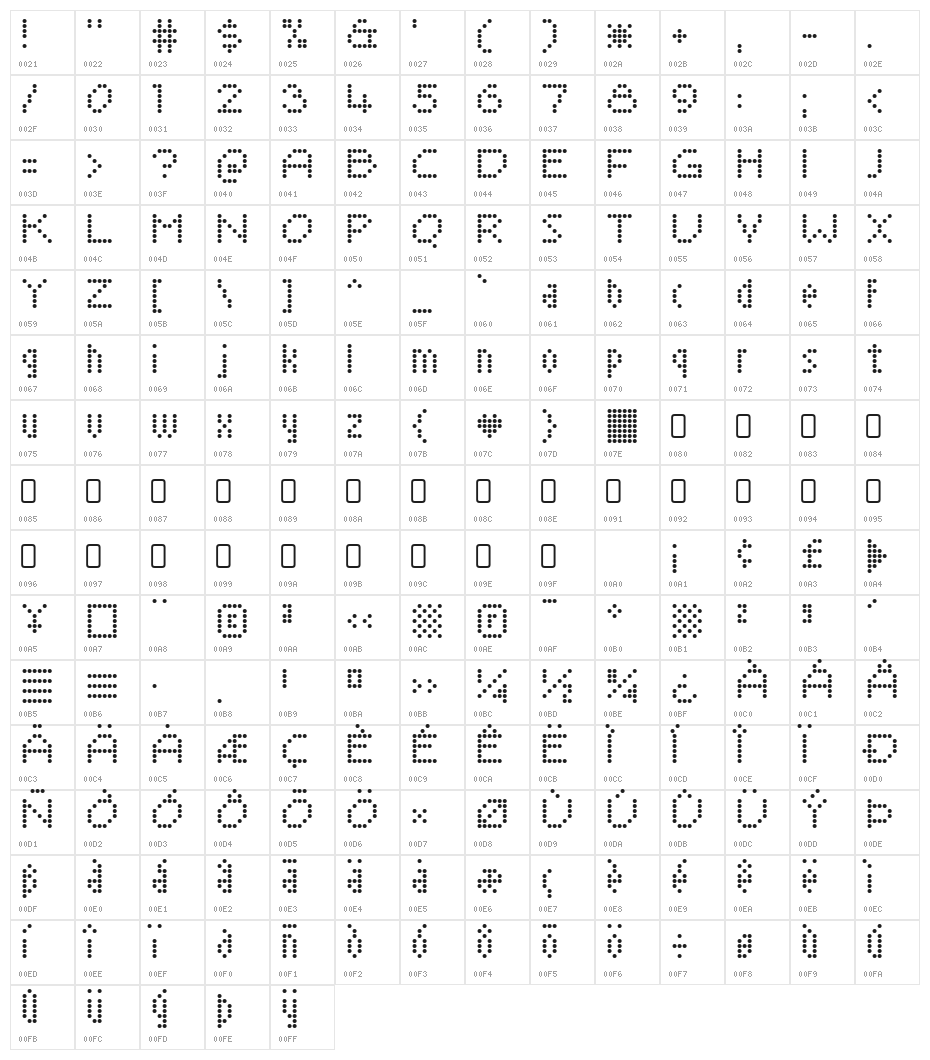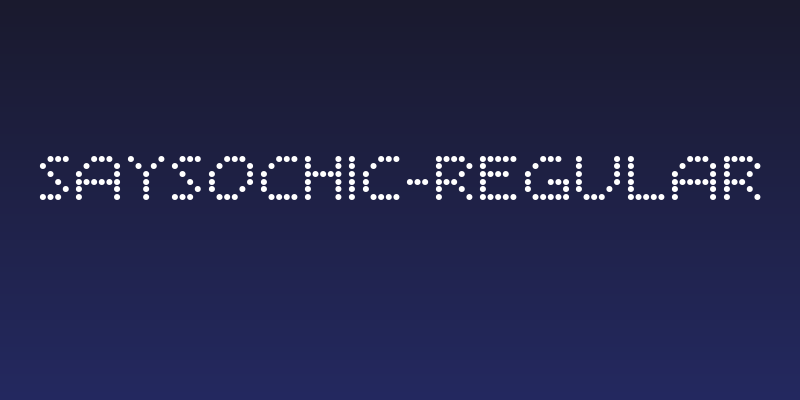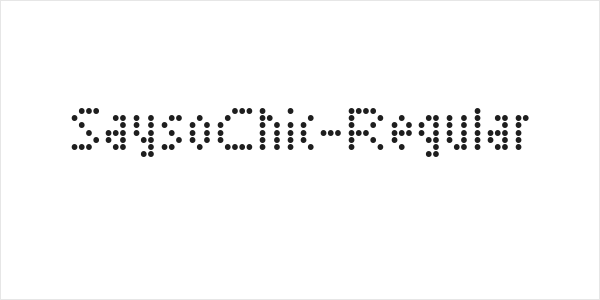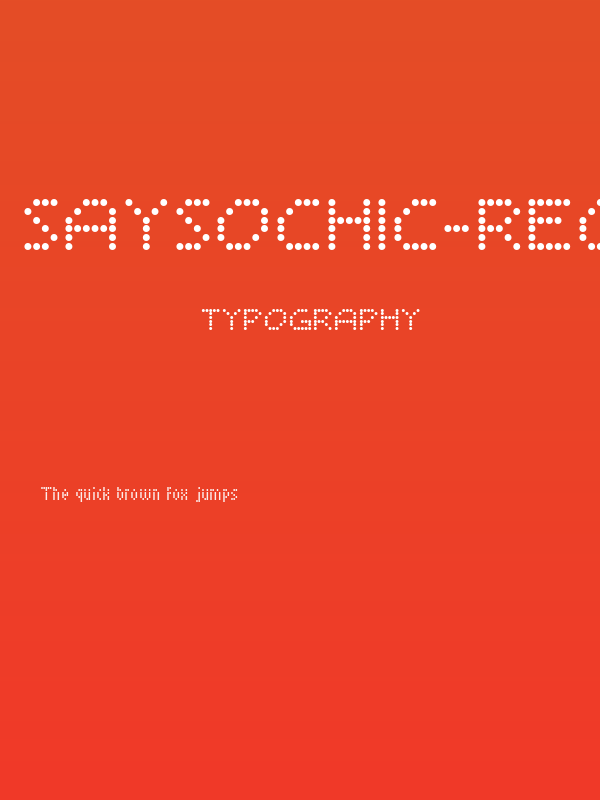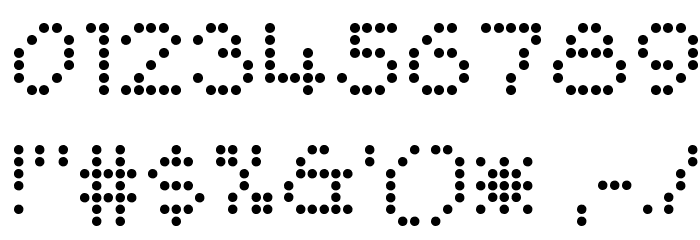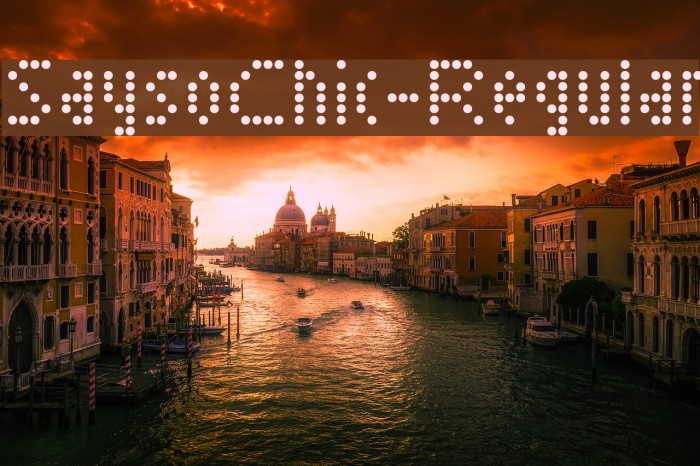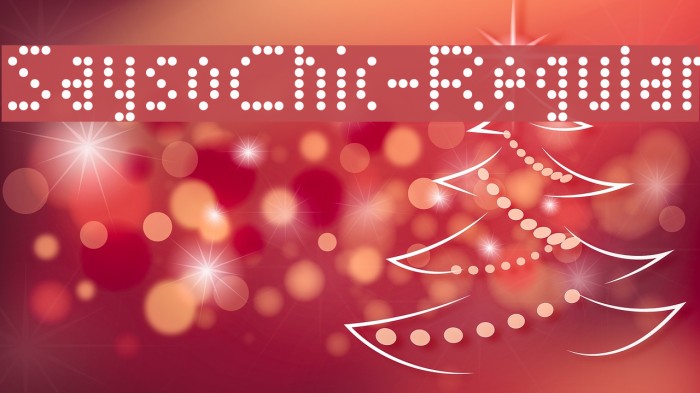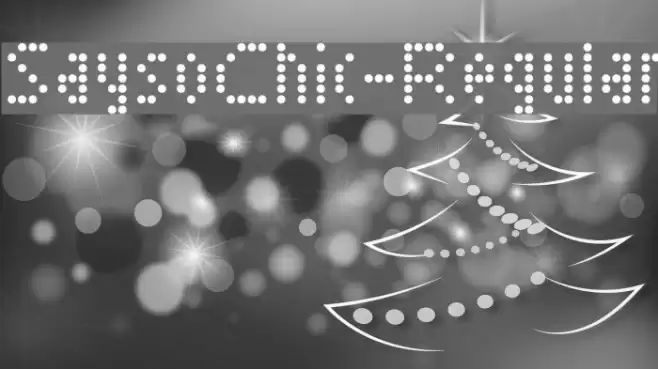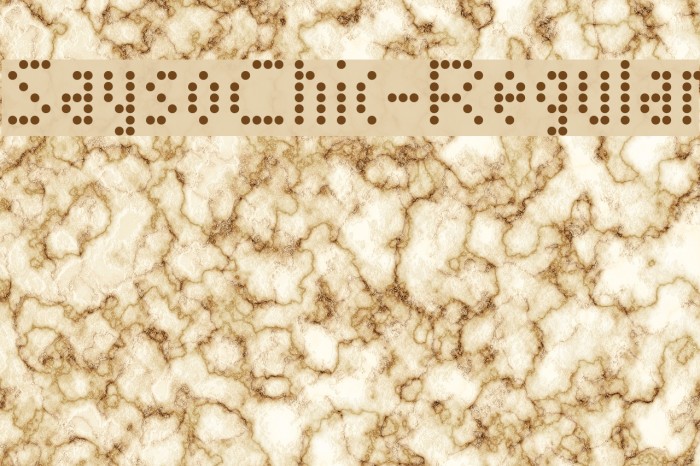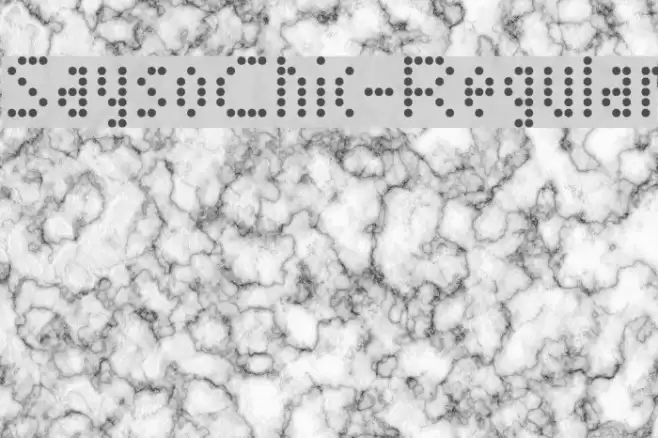
SaysoChic-Regular Font
| حالة الاستخدام | Headlines, Logos, Digital Displays |
| مشاريع مقترحة | Ideal for digital displays, tech-themed posters, creative branding, and innovative advertising campaigns. |